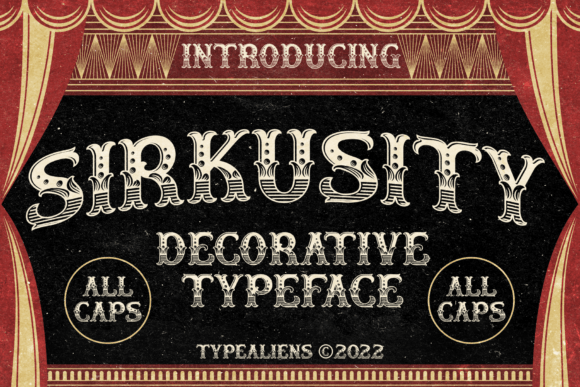
Introducing Sirkusity Font, the best font for German text! This decorative font family, created by typealiens, is the perfect addition to any project that needs a unique and stylish touch. Sirkusity is inspired by the fabulous world of the circus, providing a vintage, cabaret-style look that is sure to catch the eye.
This font family is incredibly versatile, making it perfect for a wide range of projects. Whether you're designing a poster, creating a website, or crafting a logo, Sirkusity will add an unforgettable element of style and personality to your work.
But Sirkusity is more than just a decorative font. Its captivating curves and intricate details will transport your audience to a world of magic and wonder, evoking powerful emotions and creating a lasting impression. With Sirkusity, you can tell a story, capture a mood, or simply make a statement.